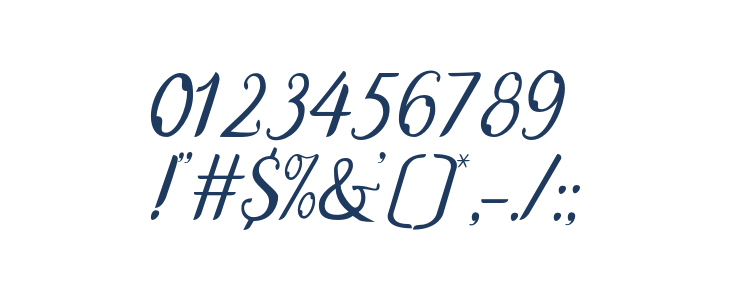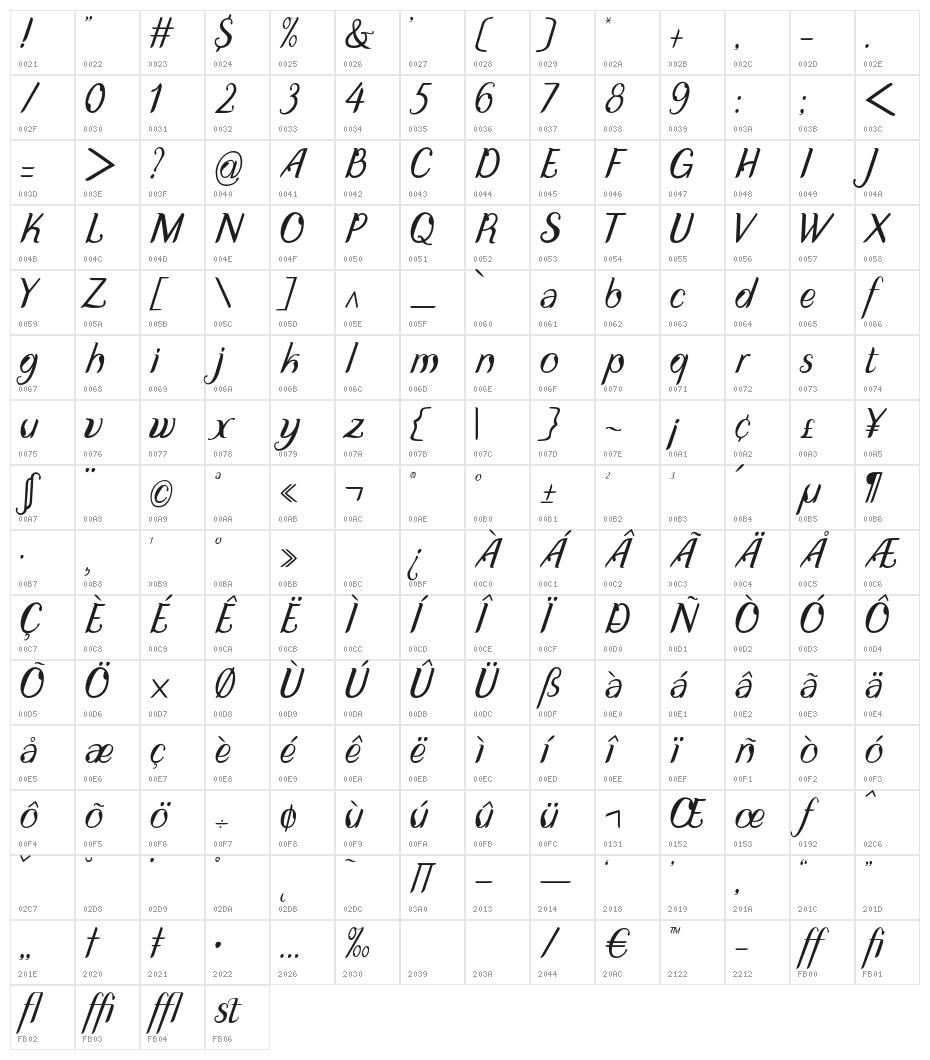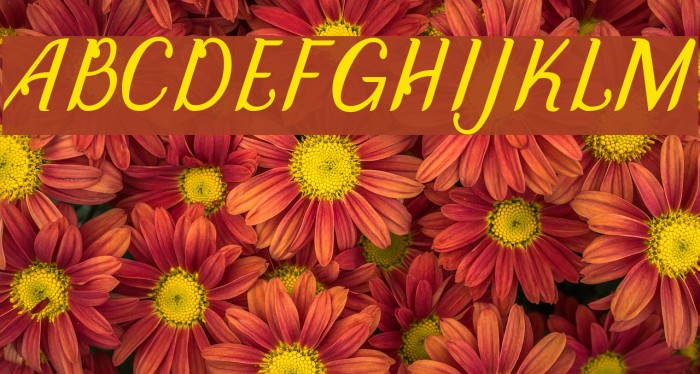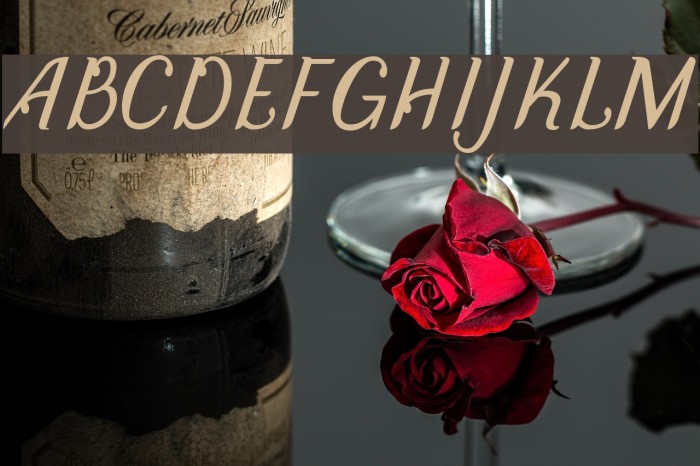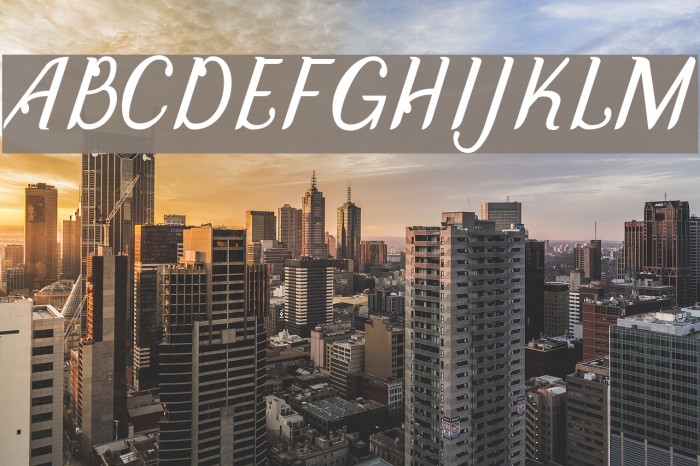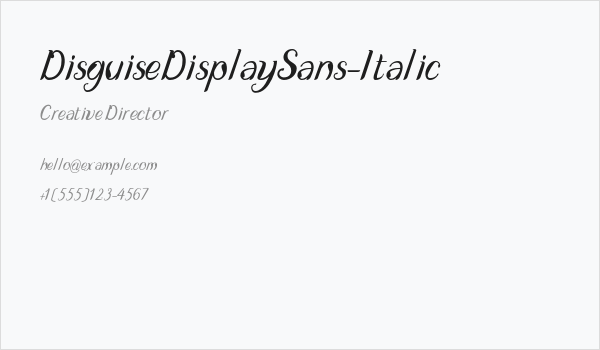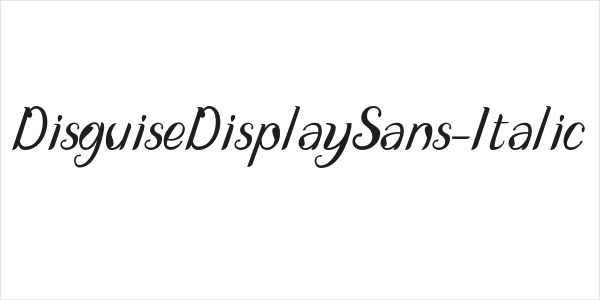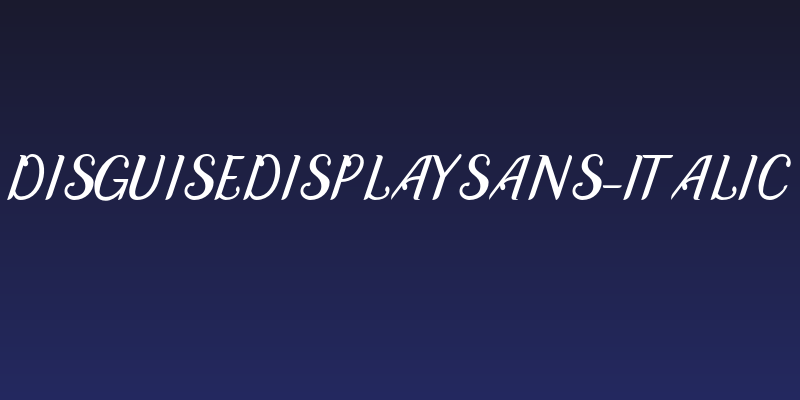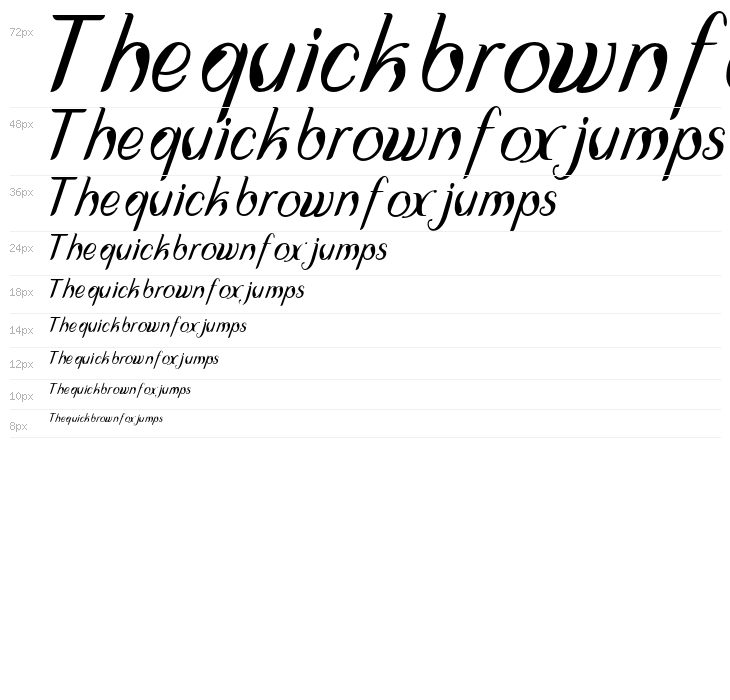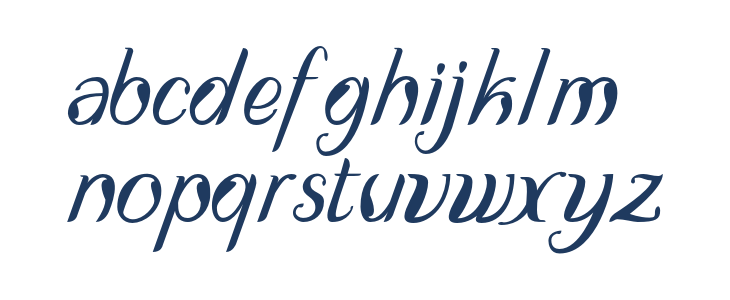
DisguiseDisplaySans-Italic Font
DisguiseDisplaySans-Italic Description
This font features a dynamic and elegant italic style with a distinct slant, giving it a sense of motion and fluidity. The characters are crafted with a moderate contrast in stroke thickness, providing a sophisticated and stylish appearance. The uppercase letters are bold and commanding, while the lowercase letters maintain a graceful flow. The numerals and special characters are designed to complement the overall aesthetic, making them suitable for a variety of design purposes. The font's unique style is both modern and timeless, making it versatile for different applications.
| Proposed Projects | Ideal for branding, fashion magazines, elegant invitations, and artistic posters. |